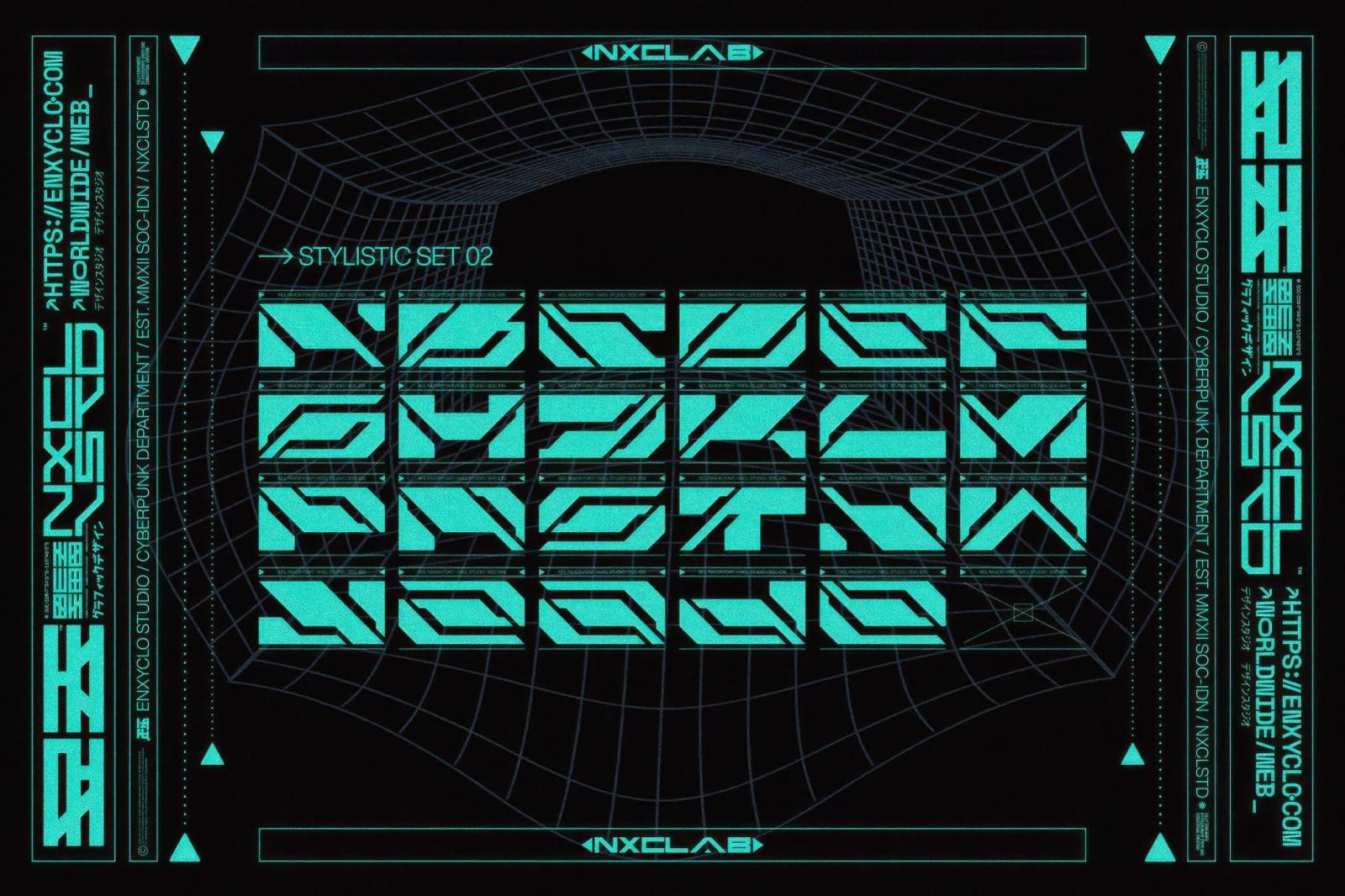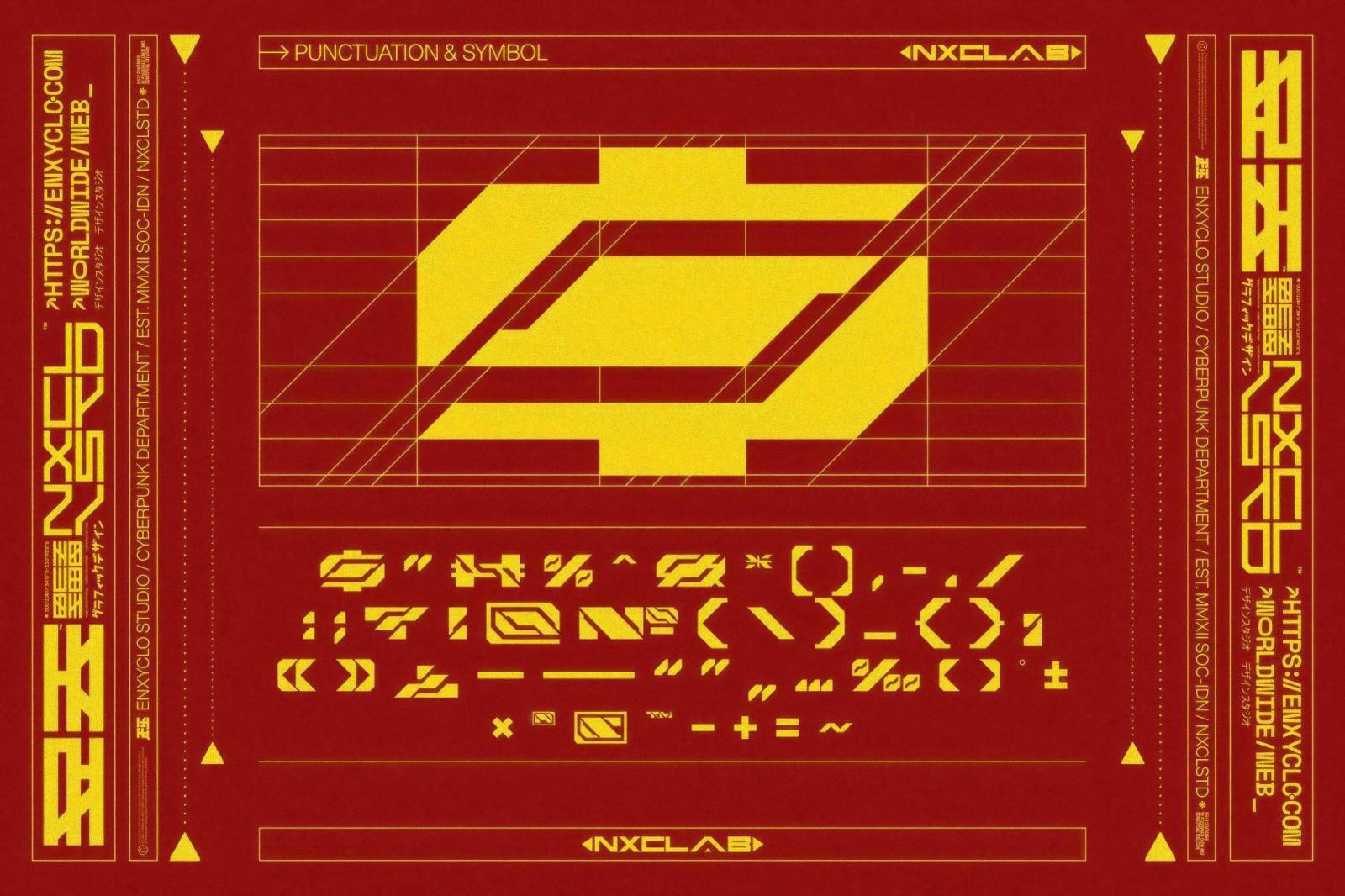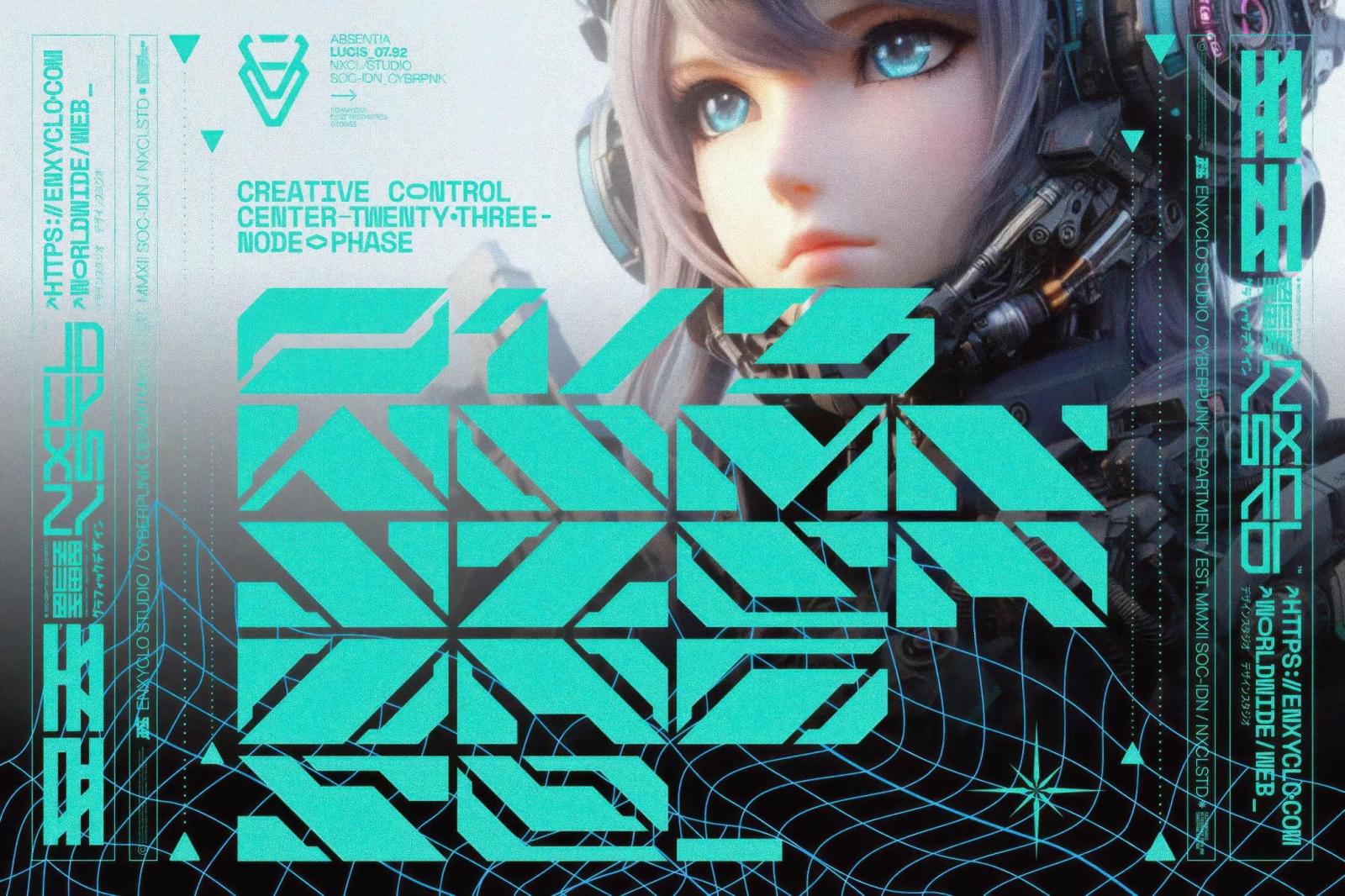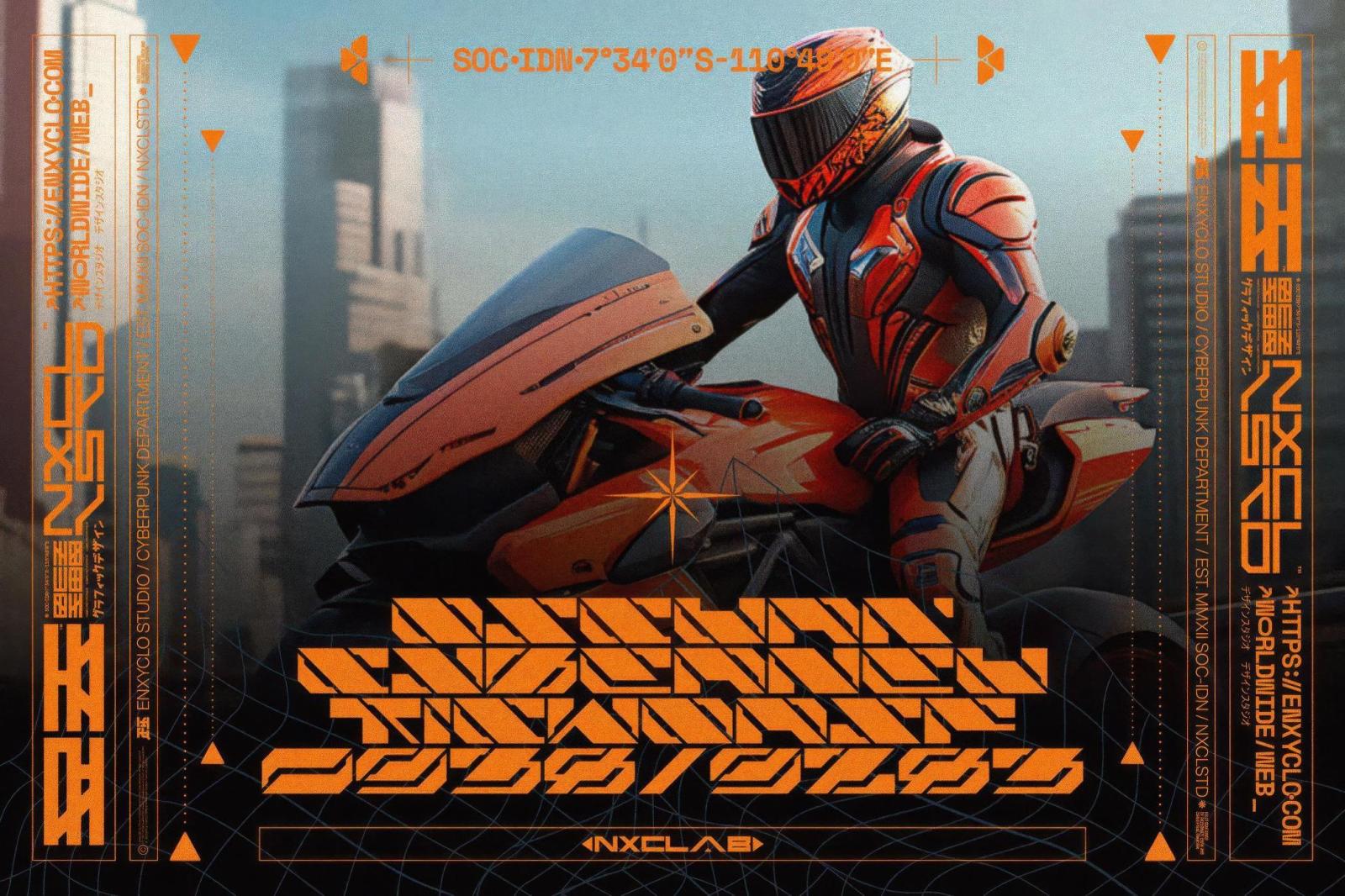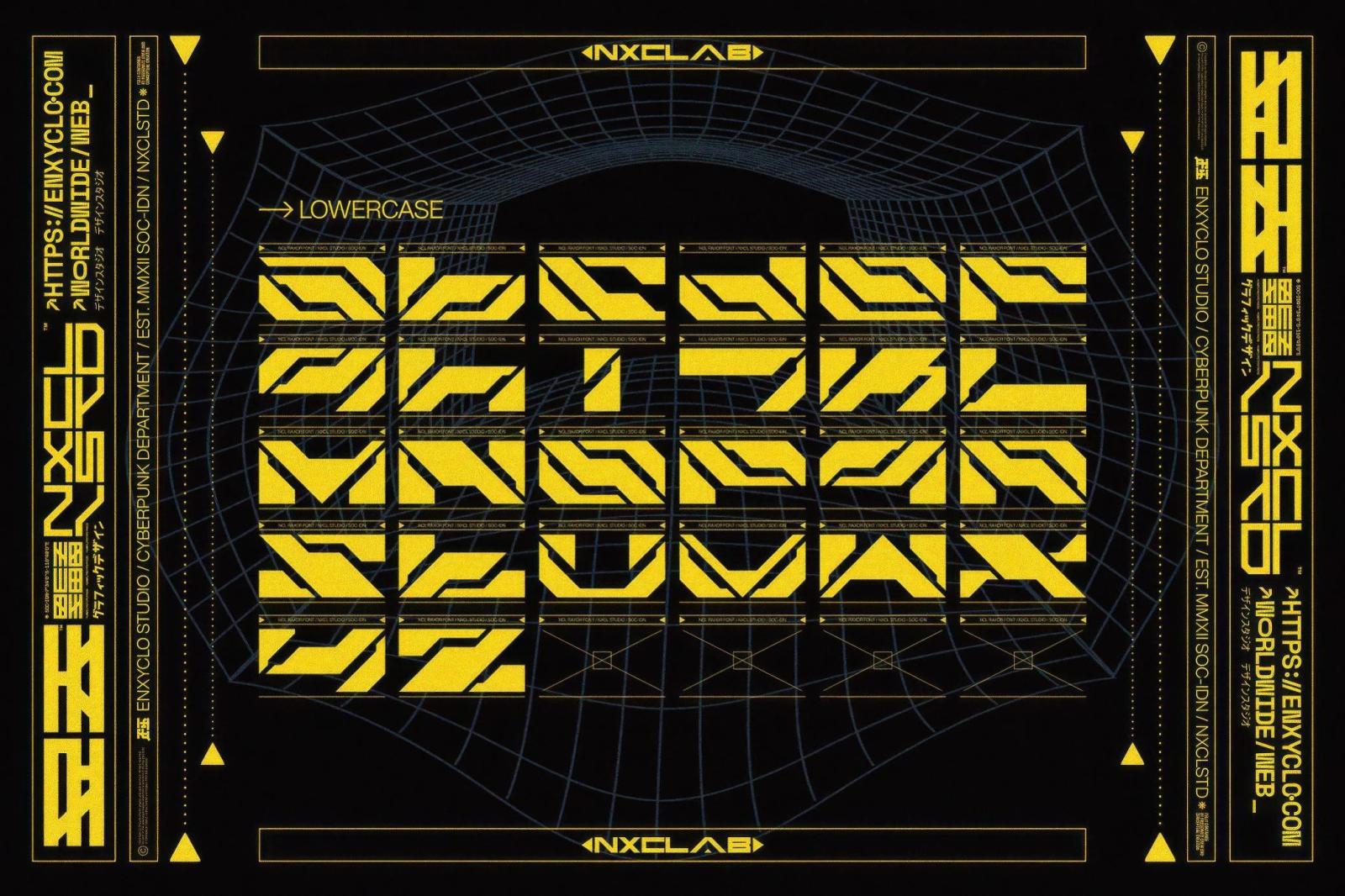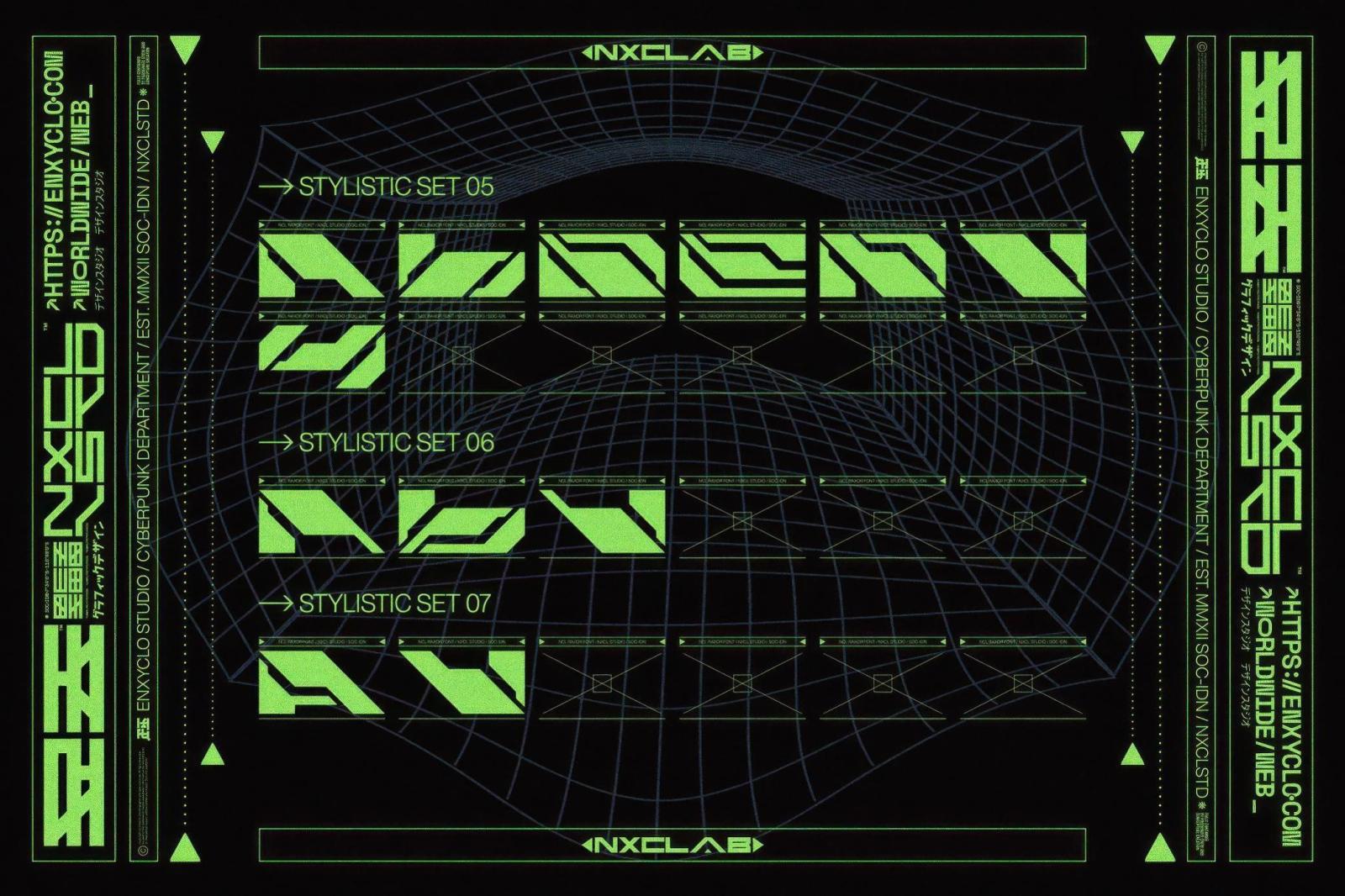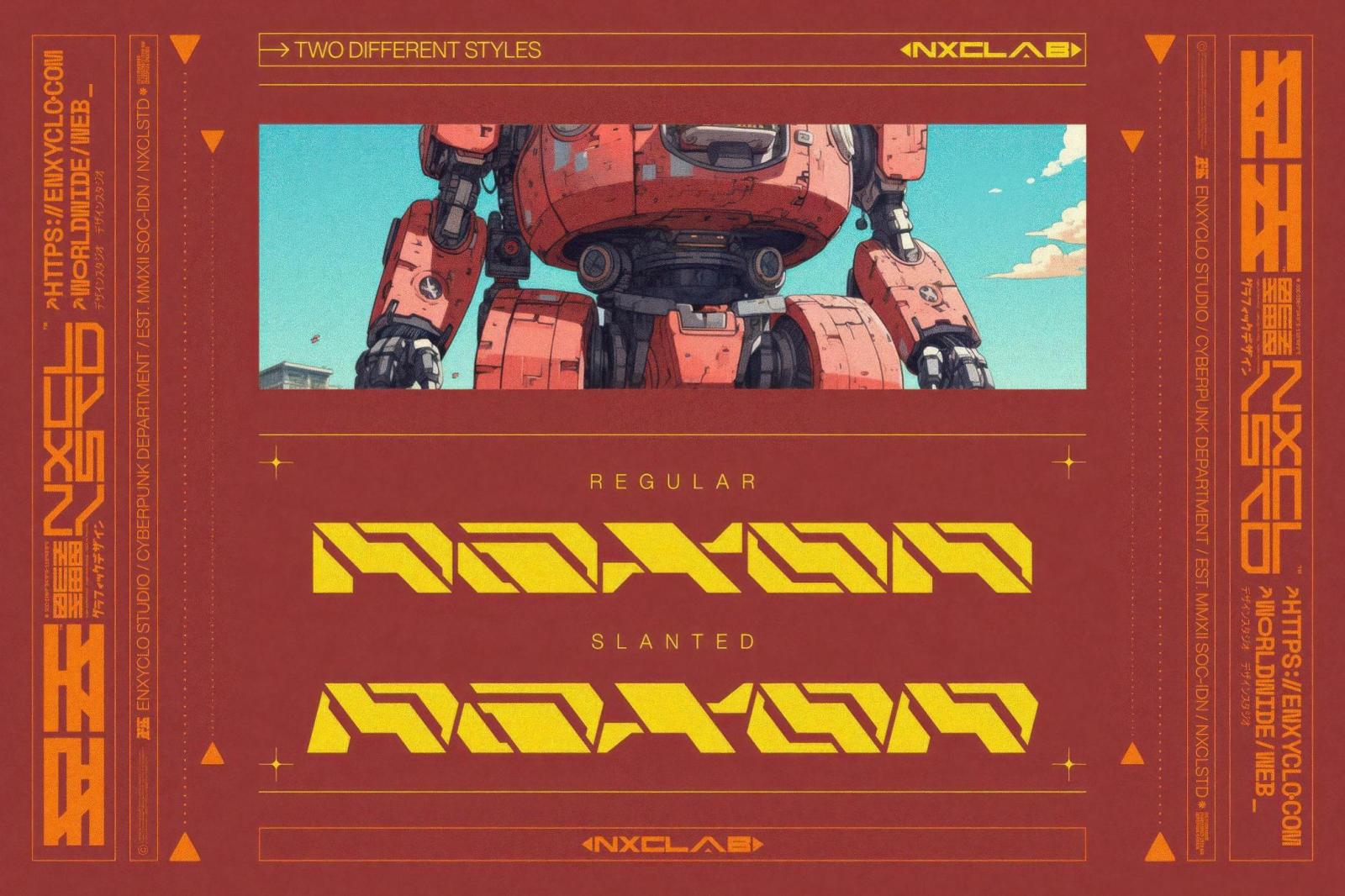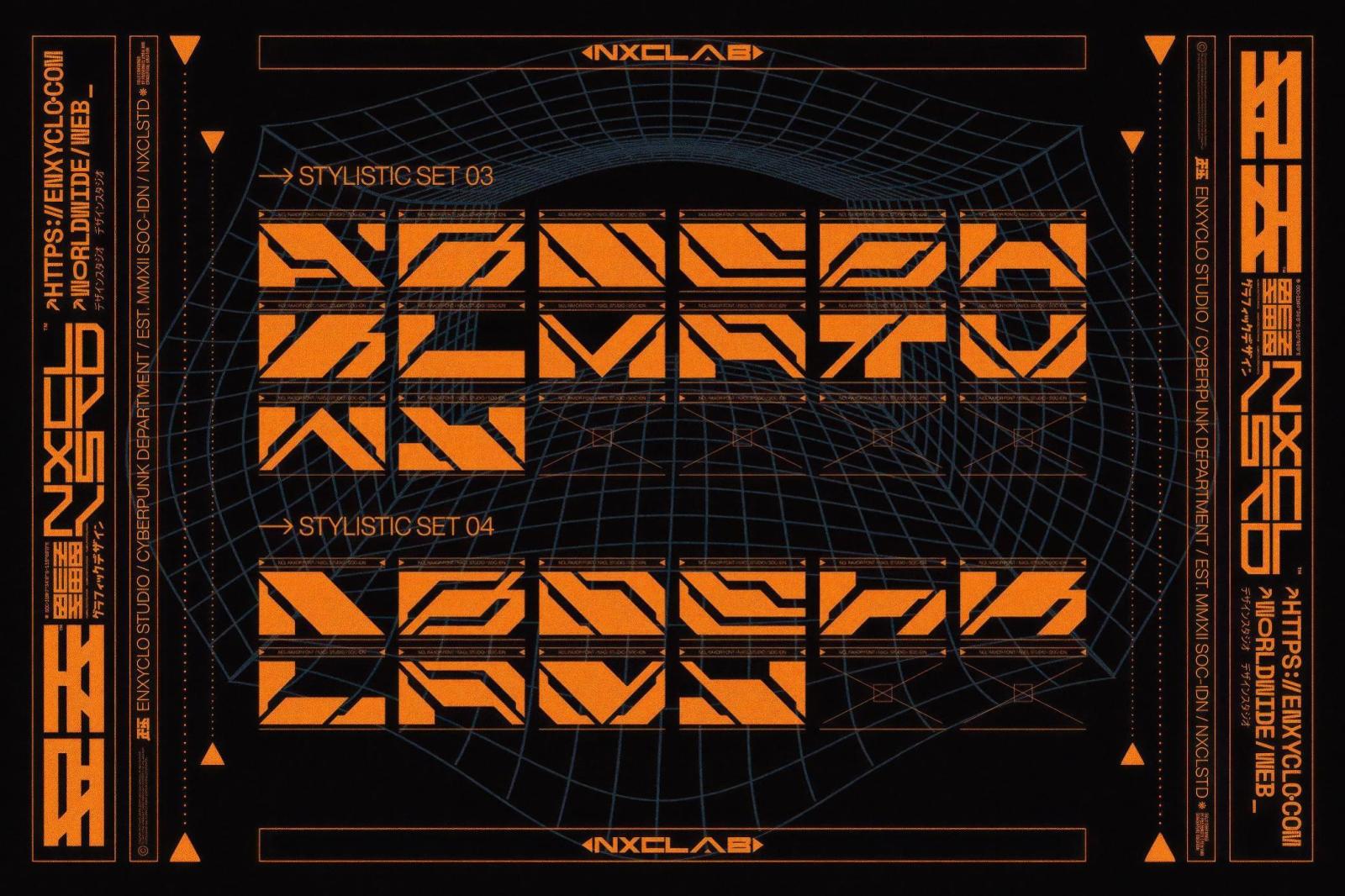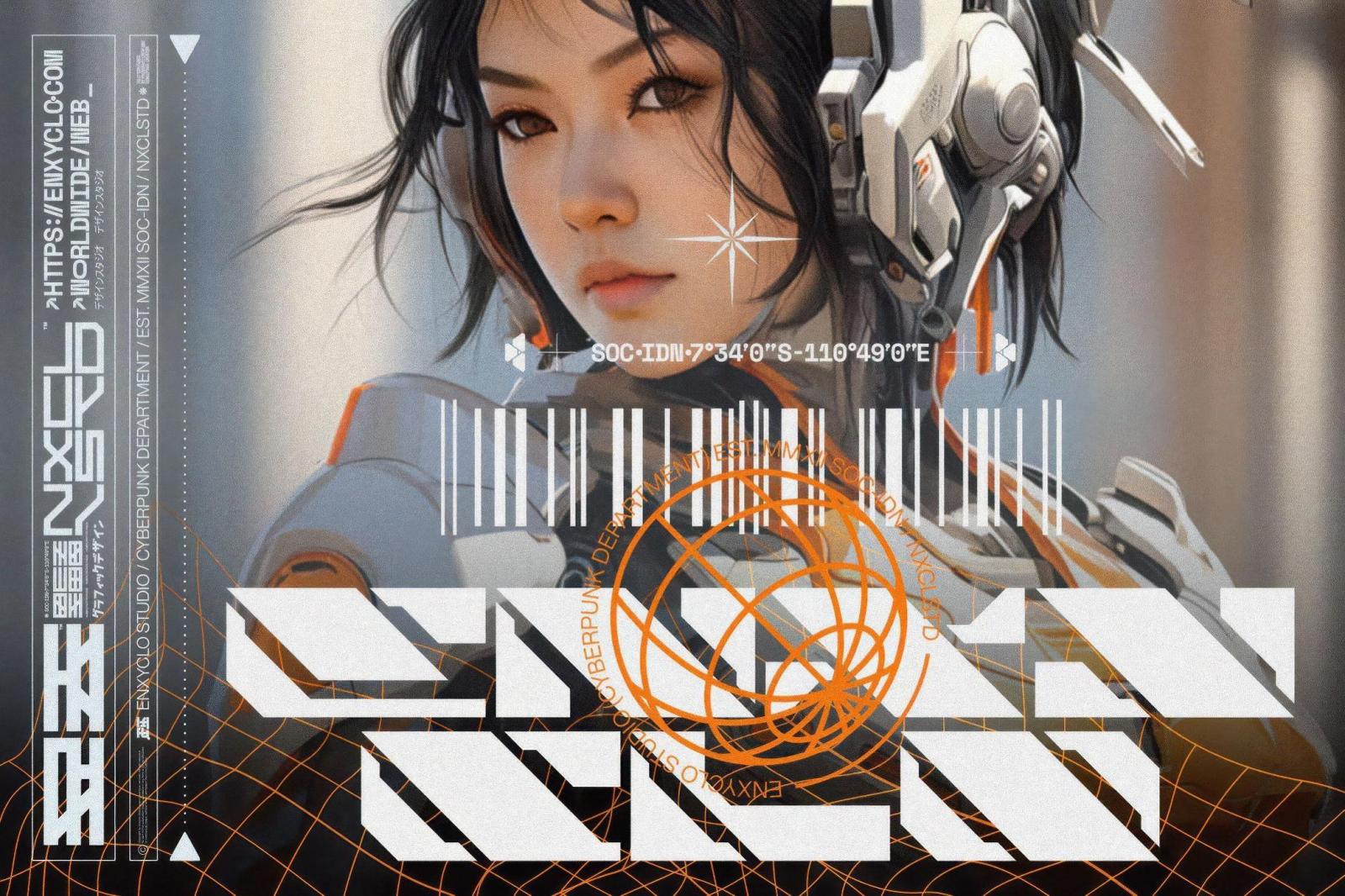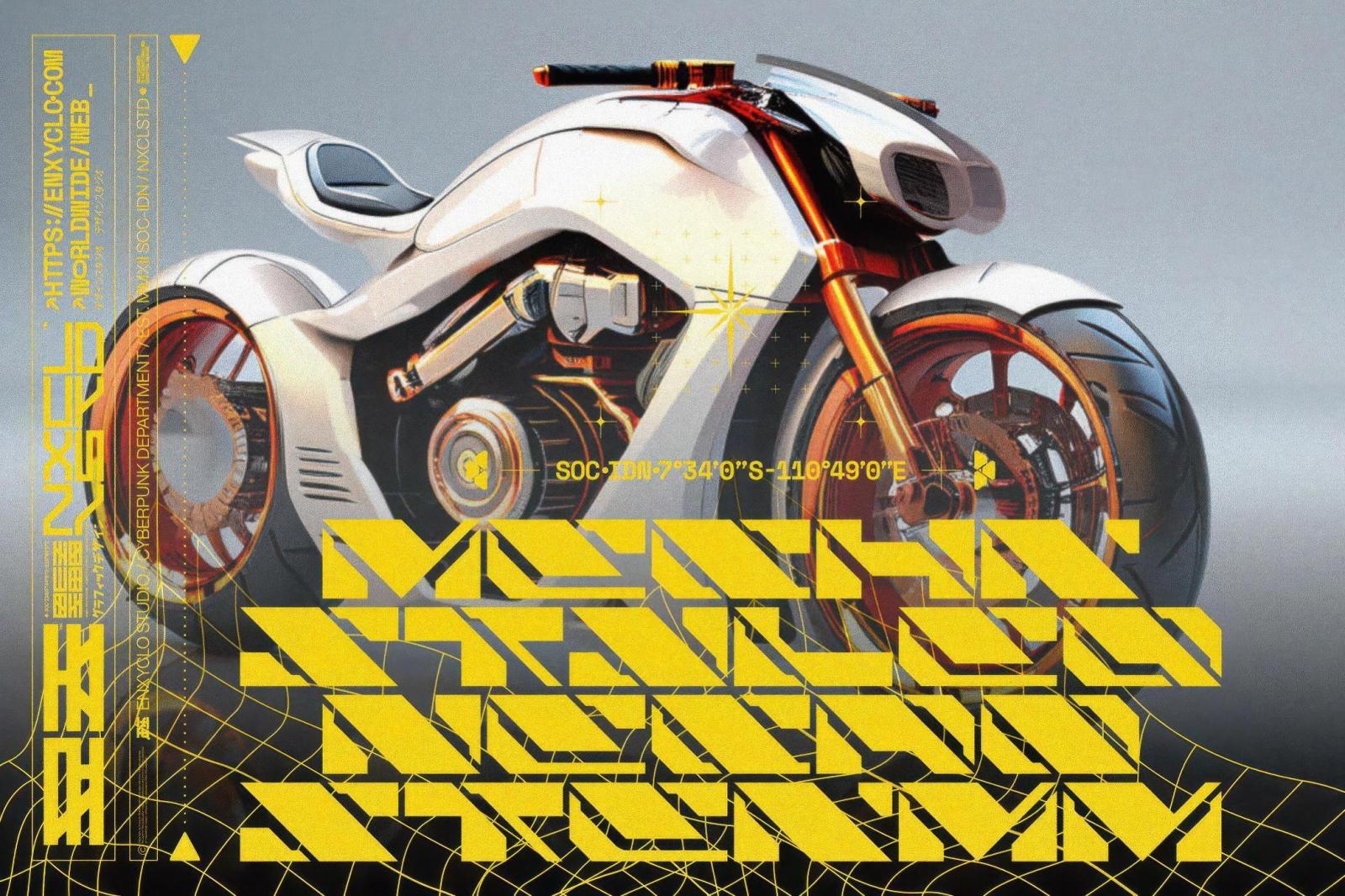
NCL Raxor — Futuristic Cyberpunk Font
Meet the messenger from the faraway future — NCL Raxor font. It's a portal to neon skylines, towering mecha, and razor-sharp design precision.
This futuristic display font connects the grit of cyberpunk with aggressive industrial futurism. Its glyphs feature bold, angular forms and brutal cutouts, like the scars of a blade across steel. Available in 2 styles, Regular and Slanted, NCL Raxor isn't designed for readability in long passages but shines in statement-making projects. Its best application will be logos, signages, streetwear pieces, music branding, banners, and event promotions. Each style has a complete character set, multilingual support, and stylistic sets.